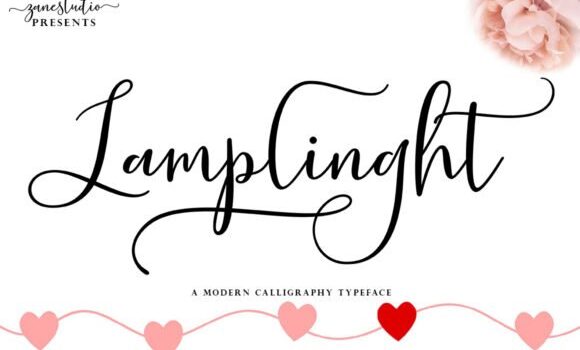
lamplinght
Lamplinght Font – Free Download Introduction to Lamplinght Font Lamplinght is a gorgeous and fun script with beautiful swashes. 📸 Preview Gallery 5 images 📌 Product Name Lamplinght Font 👤 Author Zane Studio 📂 Category Explore ⬇️ Download Lamplinght Font